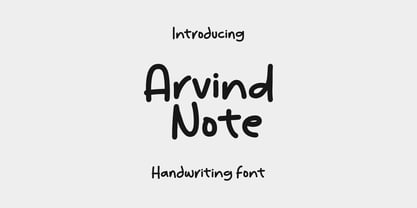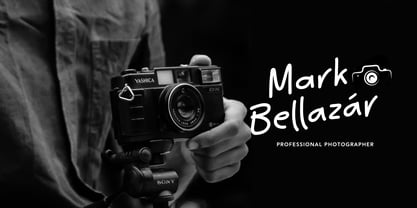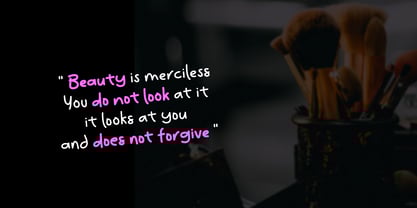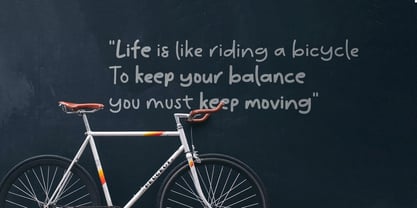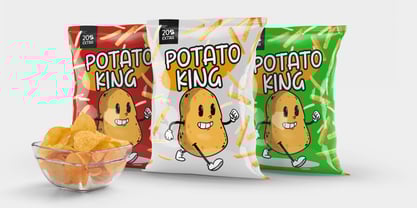
Arvind Note
by Lostvoltype
The Arvind Note Font Family was designed by Ryan Prasetya and published by Lostvoltype. Arvind Note contains 2 styles and family package options. More about this family
Whimsy Note – A Handwritten Font Full of Personality
Whimsy Note is a warm, expressive handwritten font that feels like it came straight from the pages of a personal journal. Inspired by heartfelt notes, spontaneous doodles, and unsent love letters, each letter carries a touch of human charm. Perfect for branding, invitations, quotes, or any project that needs a personal, authentic feel. Whimsy Note isn’t just a font—it’s a little piece of handwriting with a story to tell.
Designers: Ryan Prasetya
Current Foundry: Lostvoltype